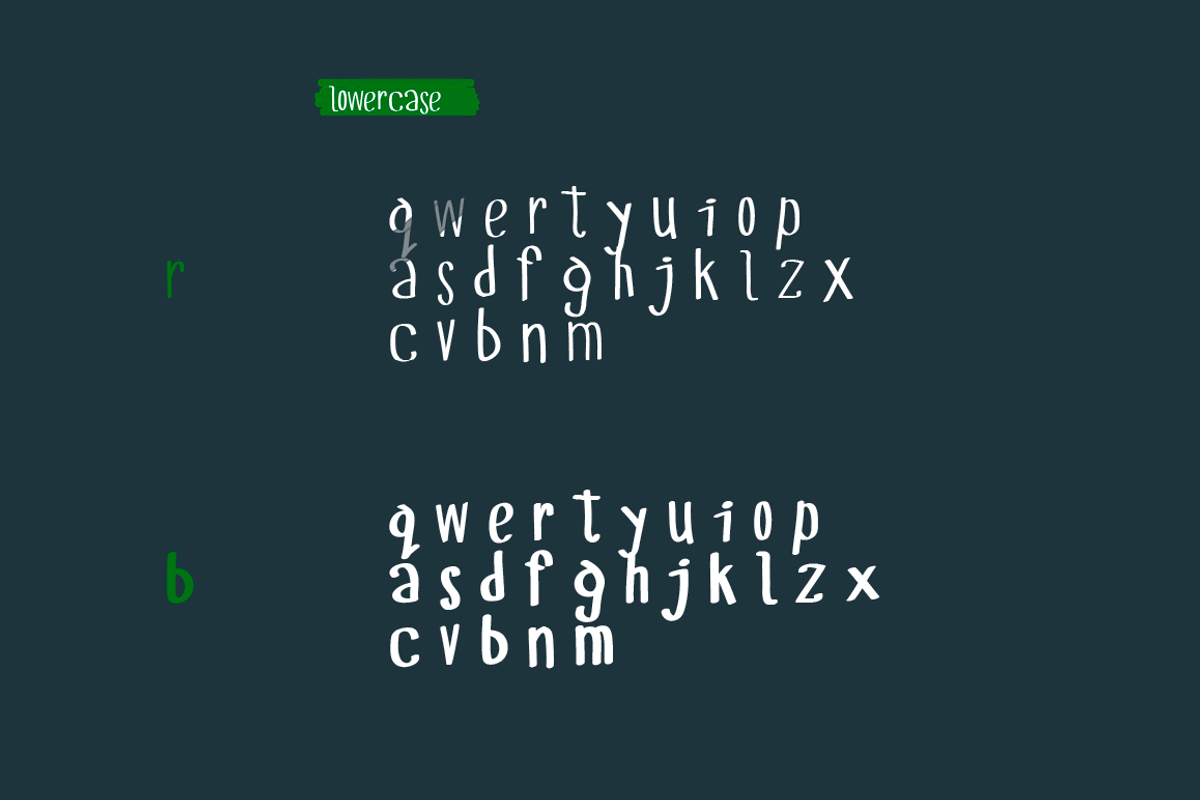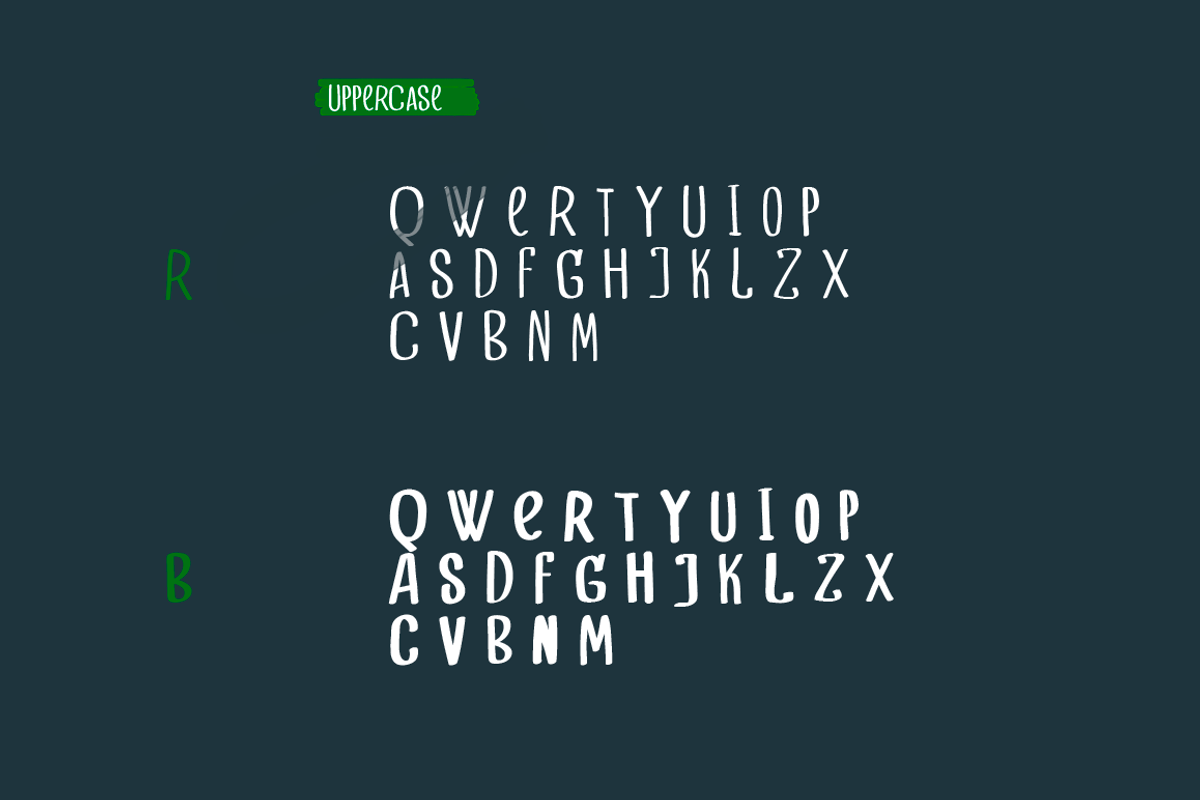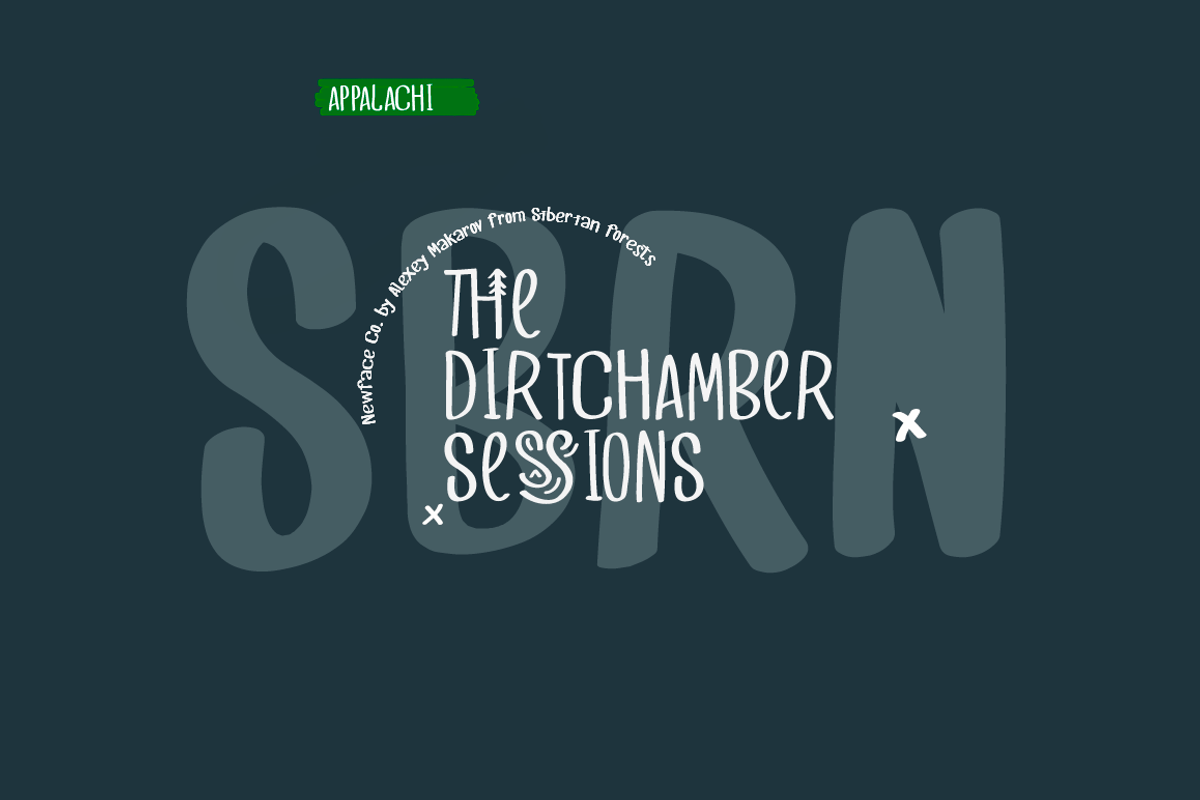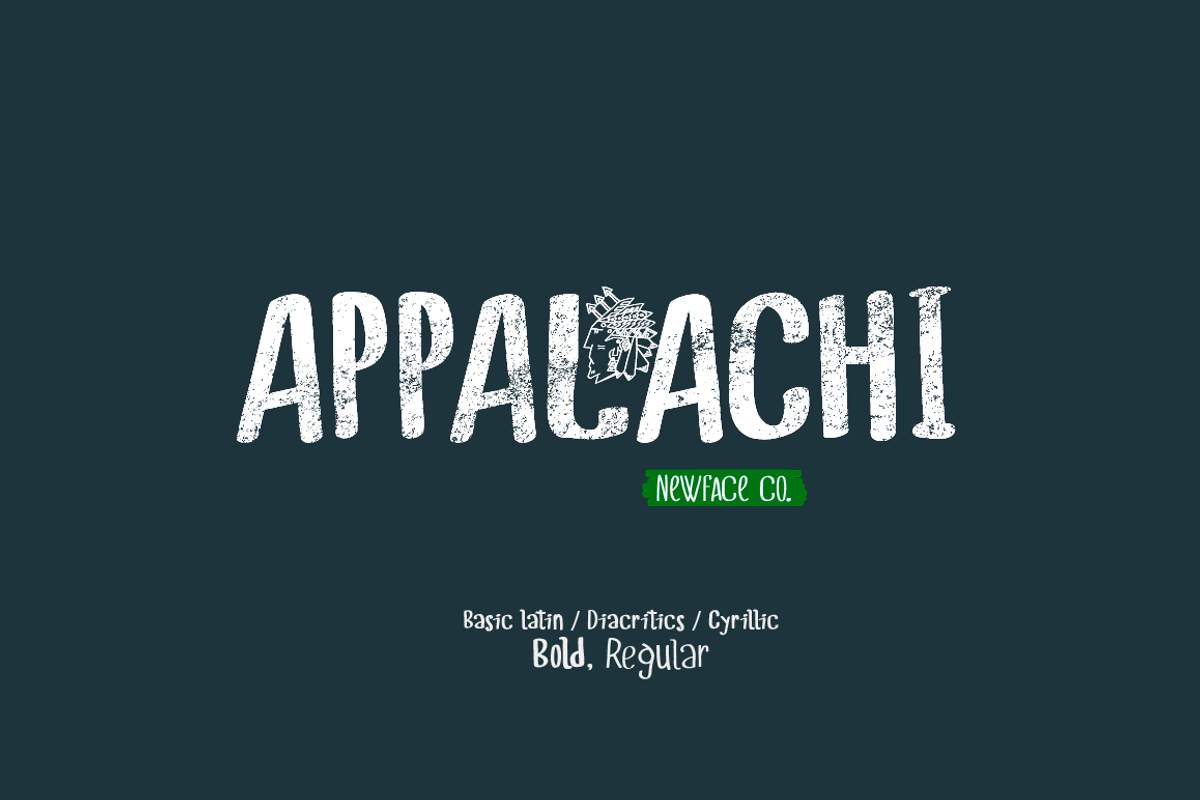
Appalachi Typeface Duo
Appalachi Typeface Duo by Newface is a font selected for branding, posters, packaging, typography.
- Language support: Contains full set of Latin alphabet, including diacritical marks for European languages and Cyrillic alphabets.
Why Appalachi Typeface Duo is worth a look
Appalachi Typeface Duo by Newface fits naturally into Branding, posters, packaging, typography.